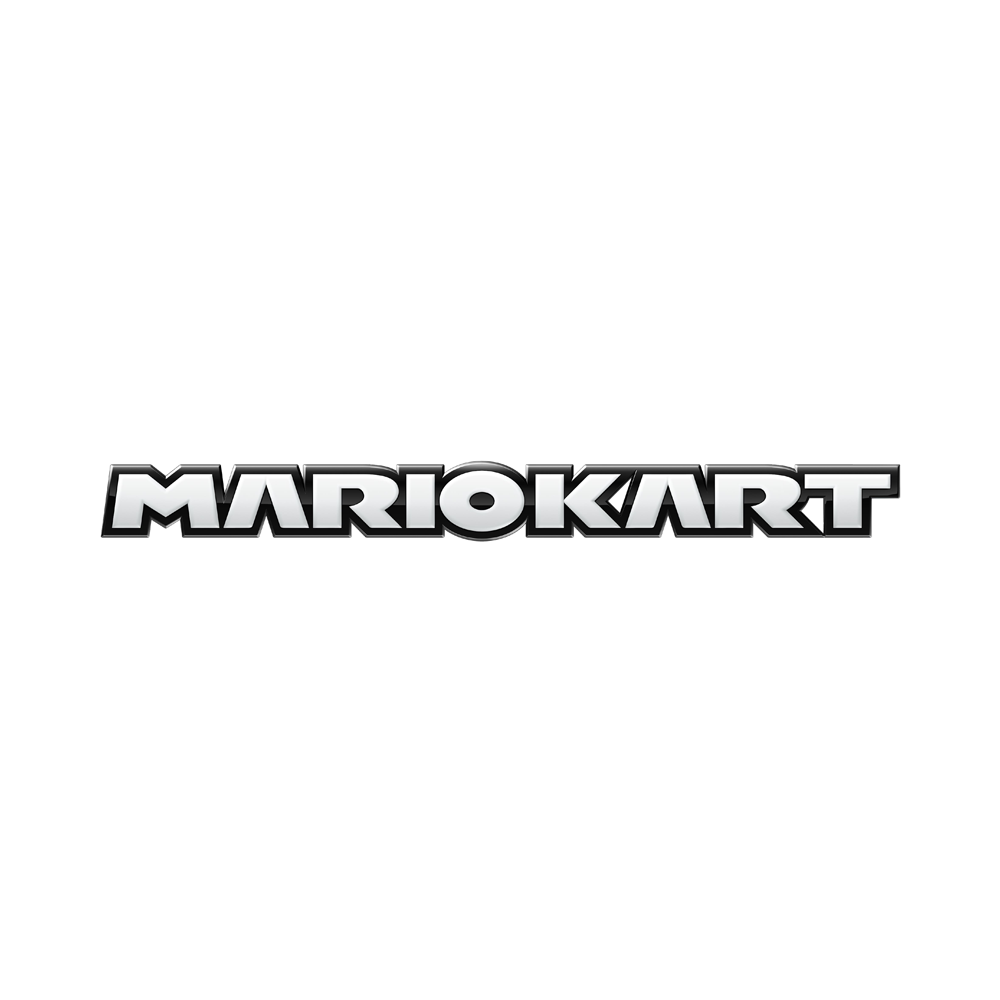
Mario Kart Font
GameMario Kart is a series of go-kart-style racing video games developed and published by Nintendo, featuring characters from the Mario franchise and other Nintendo series. Players compete in races or battle modes on various tracks, using power-ups to gain an advantage or hinder their opponents.
The font used in Mario Kart was recreated as Mario Kart F2 by Pokemon-Diamond. The font is free for personal use only.